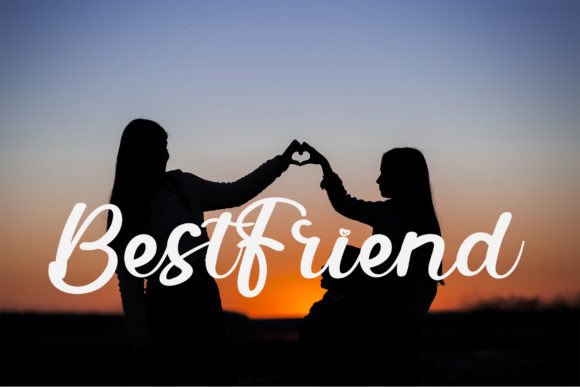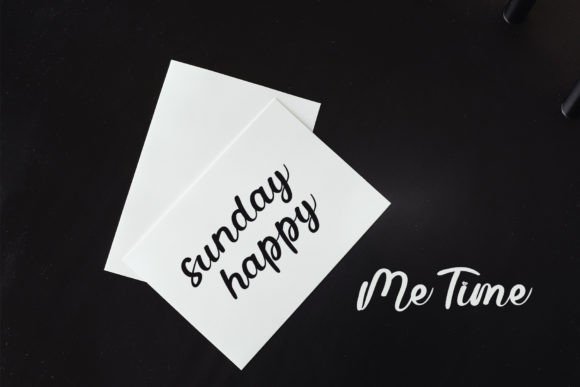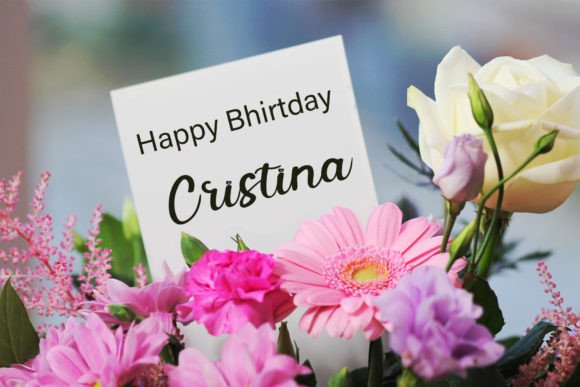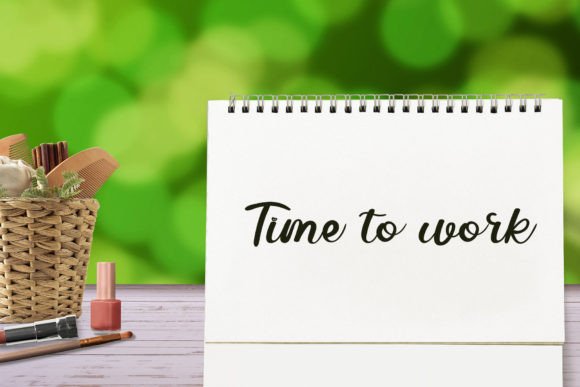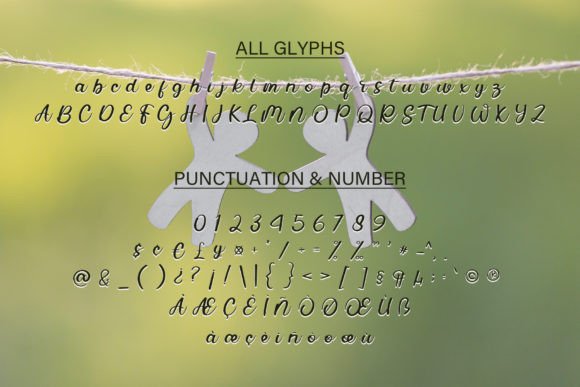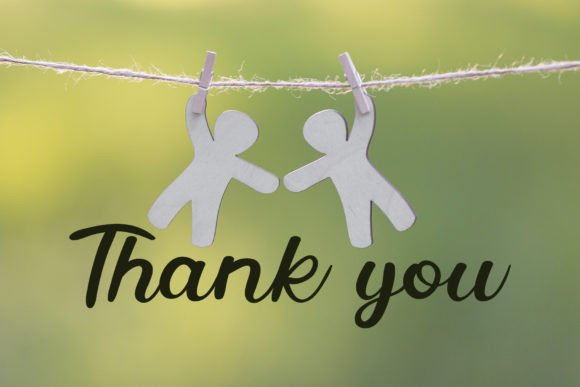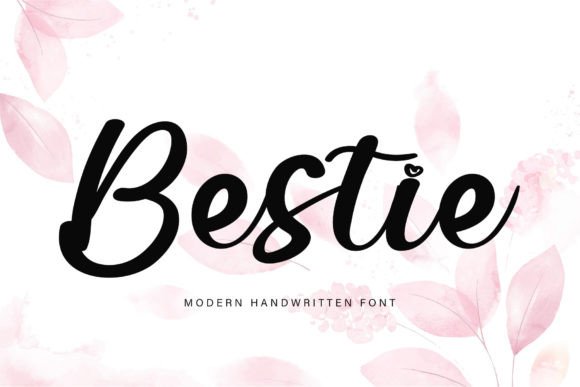
Discover the Charm of Bestie Font: The Perfect Companion for Your Design Projects
Are you tired of using the same old fonts for your design projects? Look no further than Bestie Font, a charming and versatile typeface that radiates friendship and warmth. With its smooth curves and friendly letterforms, this font is perfect for adding a personal touch to various design projects. Whether used for greeting cards, social media graphics, or branding, Bestie Font brings a sense of approachability and familiarity, making it the perfect companion for your creative endeavors.
The Characteristics of Bestie Font
Bestie Font is a unique and captivating typeface that boasts several distinct characteristics. Its smooth curves and rounded edges give it a friendly and approachable feel, making it perfect for designs that require a personal touch. The font’s letterforms are carefully crafted to convey a sense of warmth and familiarity, making it ideal for projects that aim to establish a connection with the audience.
One of the standout features of Bestie Font is its versatility. It can be used for a wide range of design projects, from greeting cards and social media graphics to branding and packaging. The font’s clean and simple design makes it easy to read and understand, while its charming and playful feel adds a touch of personality to any design.
The Benefits of Using Bestie Font
So, why should you choose Bestie Font for your design projects? Here are just a few benefits of using this charming typeface:
• Personal touch: Bestie Font adds a personal touch to your designs, making them feel more approachable and relatable.
• Versatility: The font can be used for a wide range of design projects, from digital graphics to print materials.
• Easy to read: Bestie Font is clean and simple, making it easy to read and understand.
• Unique and captivating: The font’s charming and playful feel sets it apart from more traditional typefaces.
Using Bestie Font in Your Design Projects
So, how can you use Bestie Font in your design projects? Here are a few ideas to get you started:
• Greeting cards: Add a personal touch to your greeting cards with Bestie Font’s charming and playful feel.
• Social media graphics: Use Bestie Font to create eye-catching social media graphics that stand out from the crowd.
• Branding: Establish a connection with your audience using Bestie Font’s warm and approachable feel.
• Packaging: Add a touch of personality to your packaging with Bestie Font’s unique and captivating design.
Tips for Getting the Most Out of Bestie Font
Here are a few tips for getting the most out of Bestie Font:
• Experiment with different sizes: Bestie Font looks great in a variety of sizes, from small and delicate to large and bold.
• Pair with other fonts: Try pairing Bestie Font with other fonts to create a unique and eye-catching design.
• Use in combination with images: Bestie Font looks great in combination with images, especially those with a warm and friendly feel.
Font Name Bestie Font
Author pinkmeca
In conclusion, Bestie Font is a charming and versatile typeface that radiates friendship and warmth. With its smooth curves and friendly letterforms, this font is perfect for adding a personal touch to various design projects. Whether used for greeting cards, social media graphics, or branding, Bestie Font brings a sense of approachability and familiarity, making it the perfect companion for your creative endeavors. So why not give Bestie Font a try and see the difference it can make in your designs?